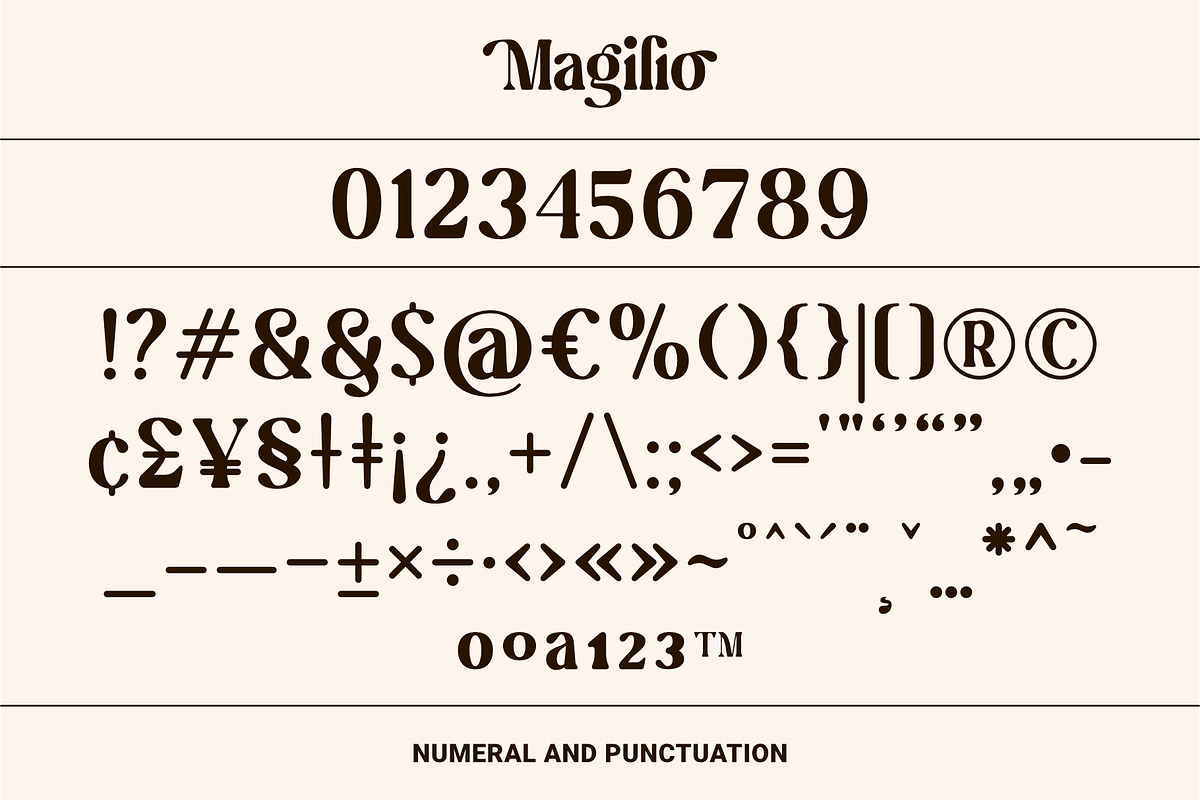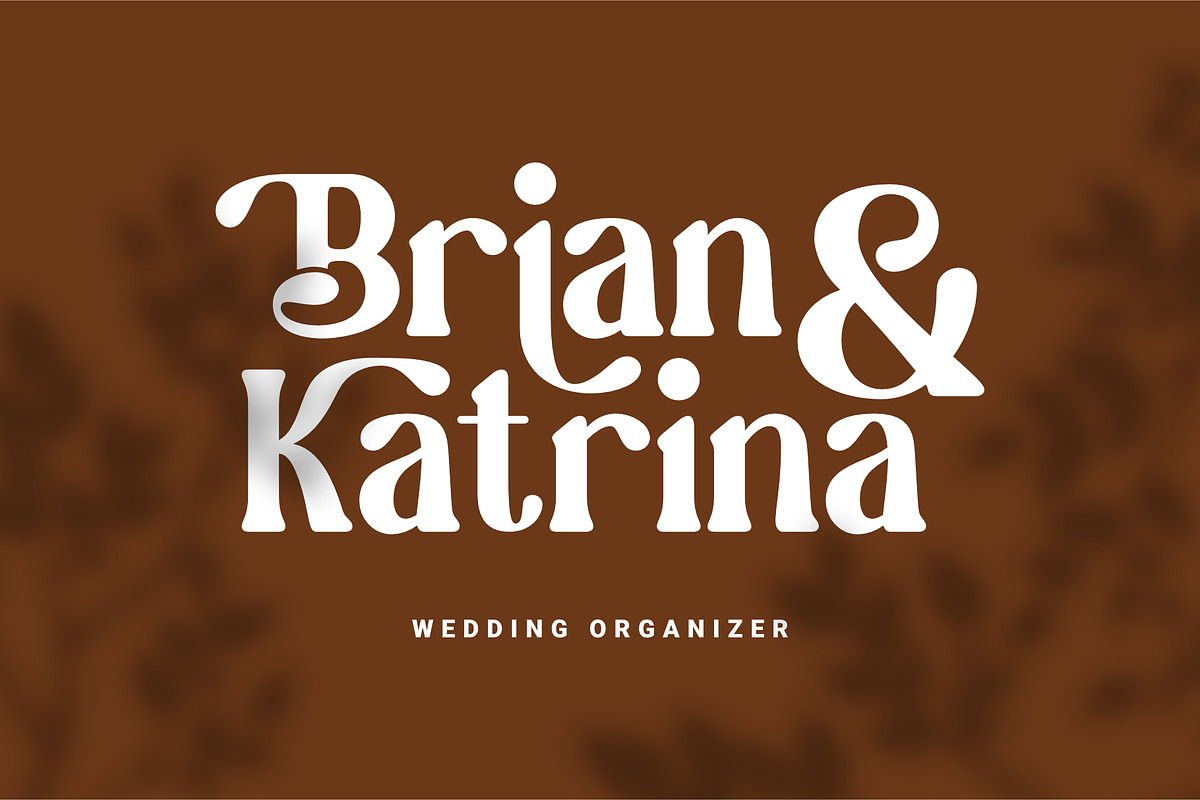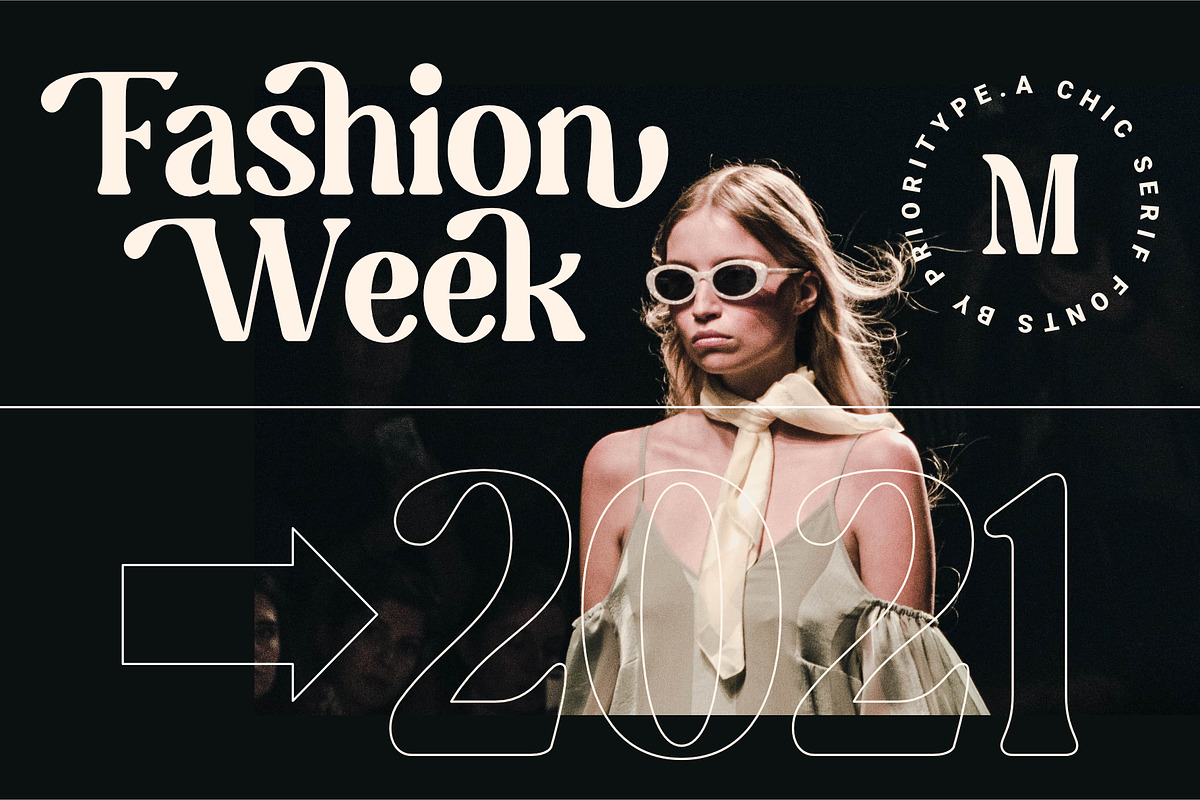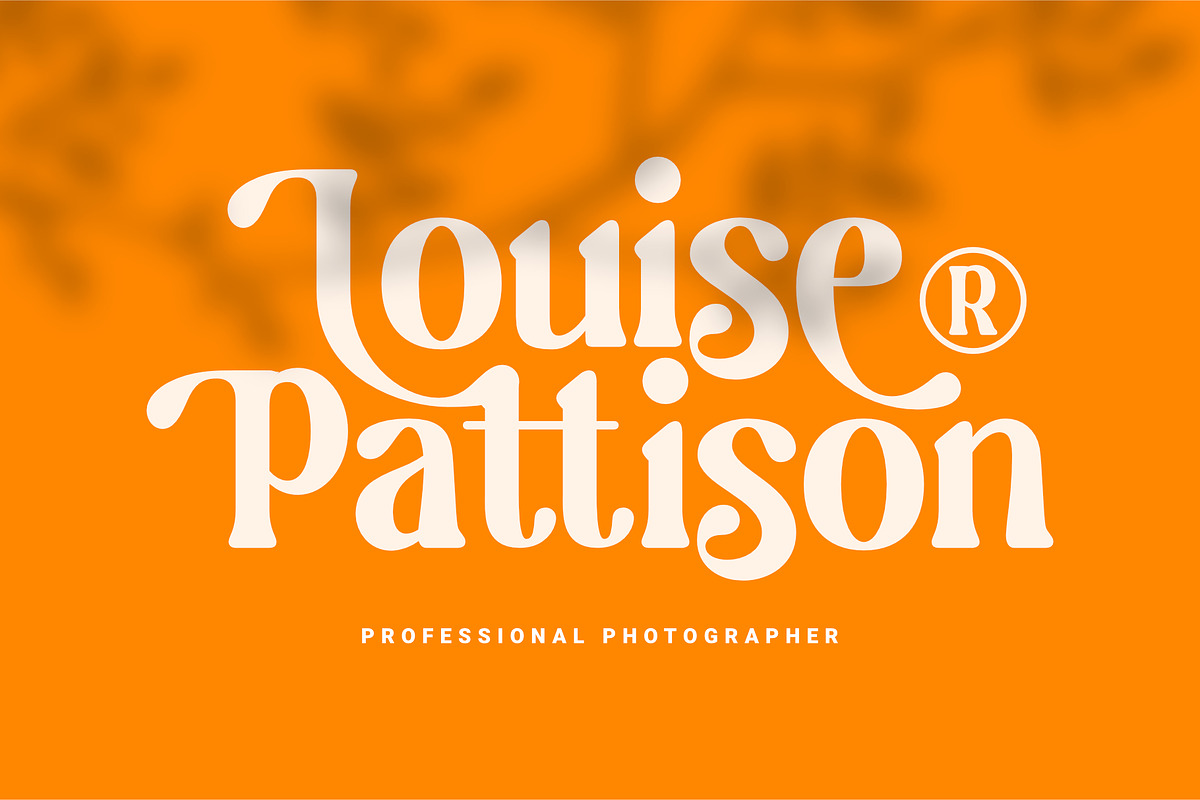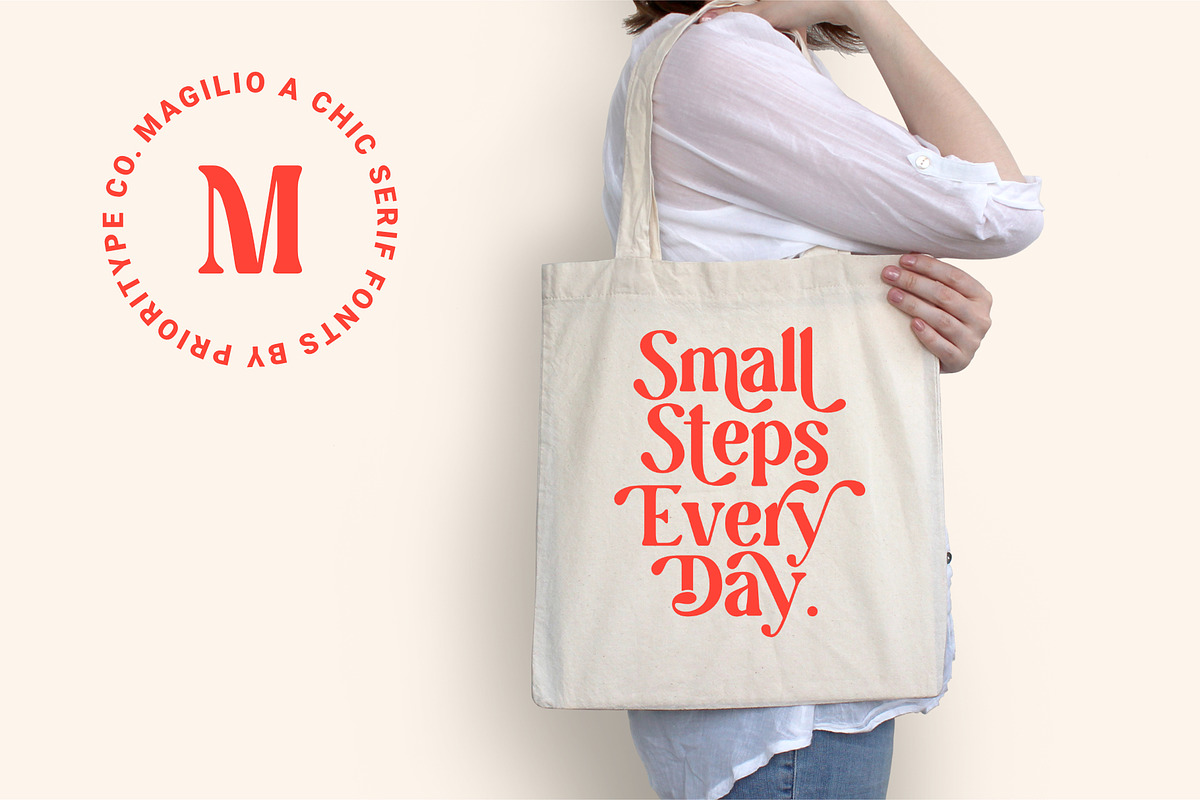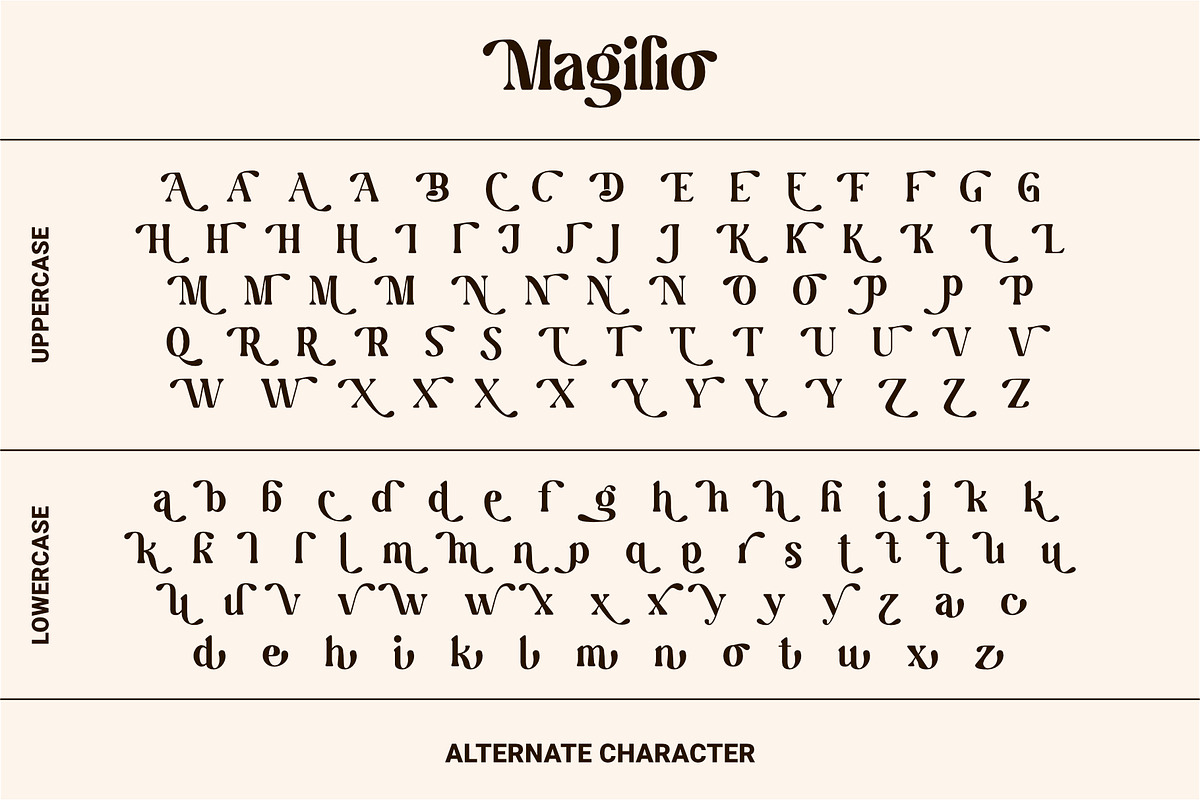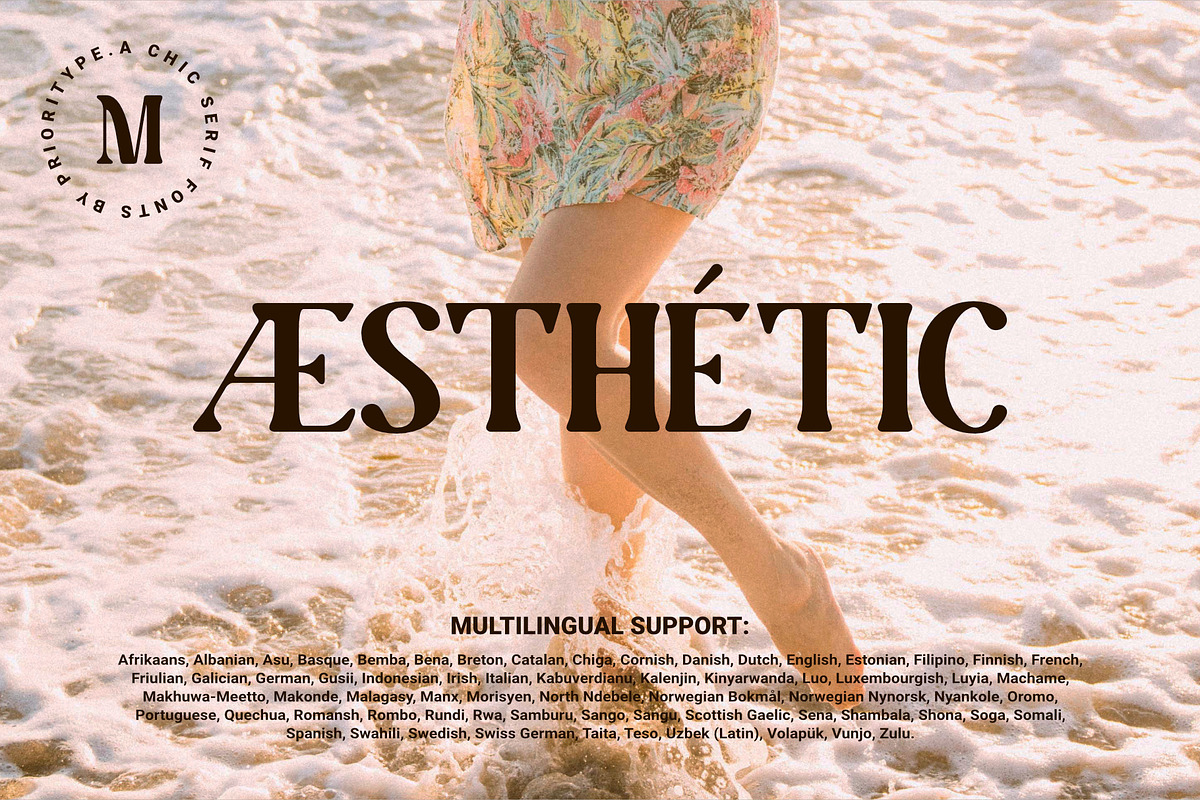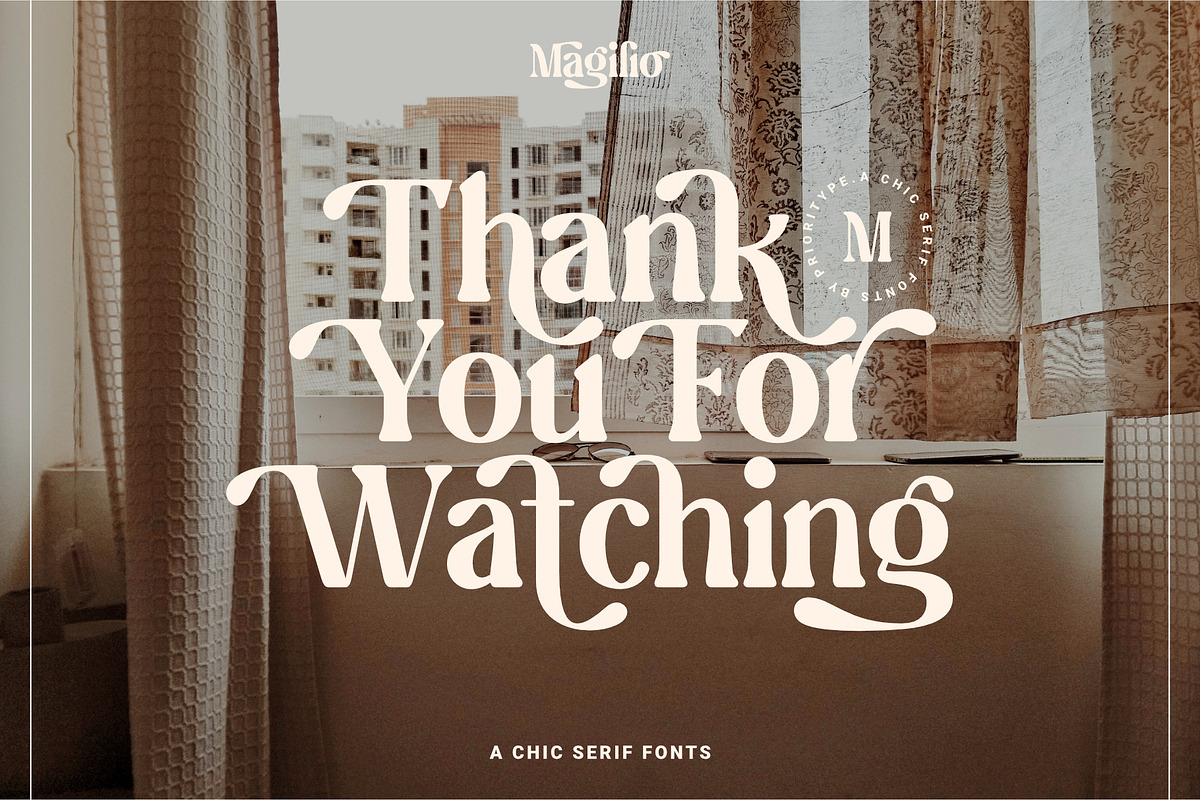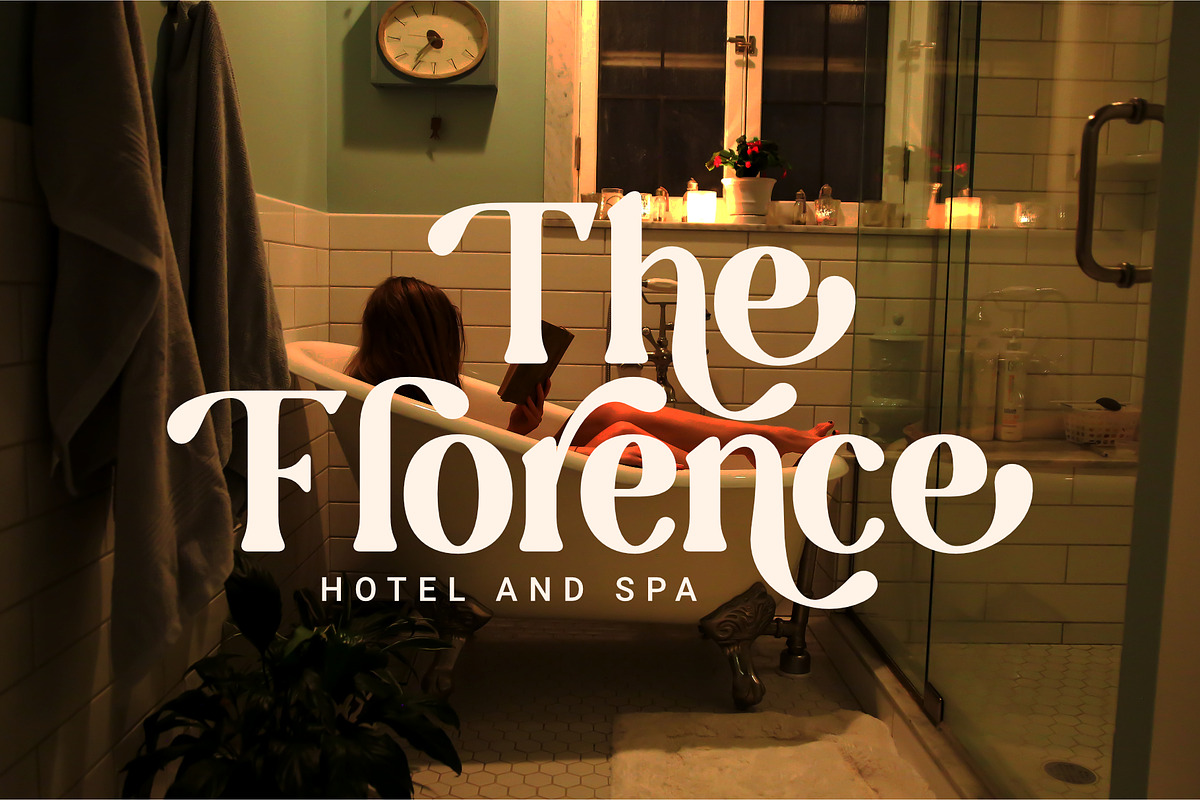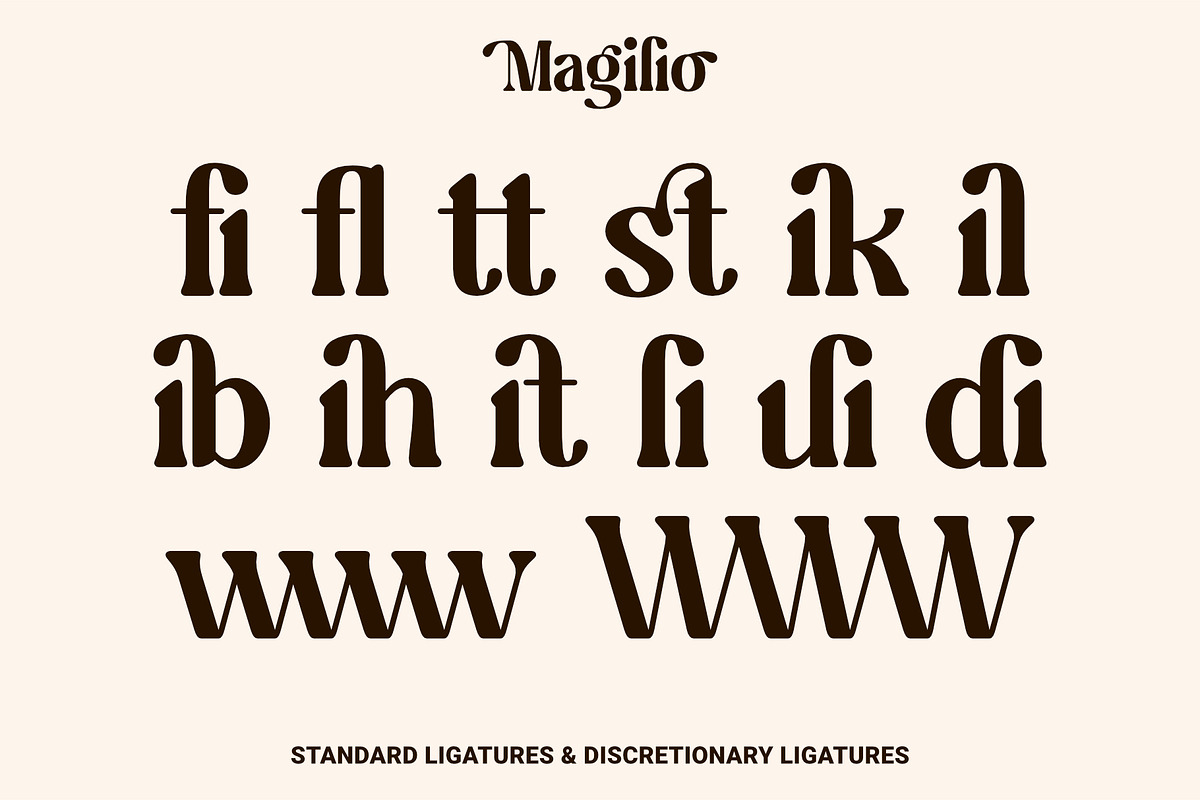
Magilio - A Chic Serif Fonts
Magilio - A Chic Serif Fonts.
Beautiful and soft fonts in a contemporary style that can make your design projects look modern, elegant and luxurious. Made with many alternative characters to make it easier for you to do various design projects and give you fun while typing.
You can apply them to designs like social media posts, logos, merchandise, book covers, posters, video content thumbnails, quotes, landing pages, wedding invitations and much more which you can make with this great item for any design :)
Features: Uppercase, Lowercase, Numeral, Punctuation, Multilingual, Opentype Features & PUA Encoded.
Multilingual contained: Afrikaans, Albanian, Asu, Basque, Bemba, Bena, Breton, Catalan, Chiga, Cornish, Danish, Dutch, English, Estonian, Filipino, Finnish, French, Friulian, Galician, German, Gusii, Indonesian, Irish, Italian, Kabuverdianu, Kalenjin, Kinyarwanda, Luo, Luxembourgish, Luyia, Machame, Makhuwa-Meetto, Makonde, Malagasy, Manx, Morisyen, North Ndebele, Norwegian Bokmål, Norwegian Nynorsk, Nyankole, Oromo, Portuguese, Quechua, Romansh, Rombo, Rundi, Rwa, Samburu, Sango, Sangu, Scottish Gaelic, Sena, Shambala, Shona, Soga, Somali, Spanish, Swahili, Swedish, Swiss German, Taita, Teso, Uzbek (Latin), Volapük, Vunjo, Zulu.